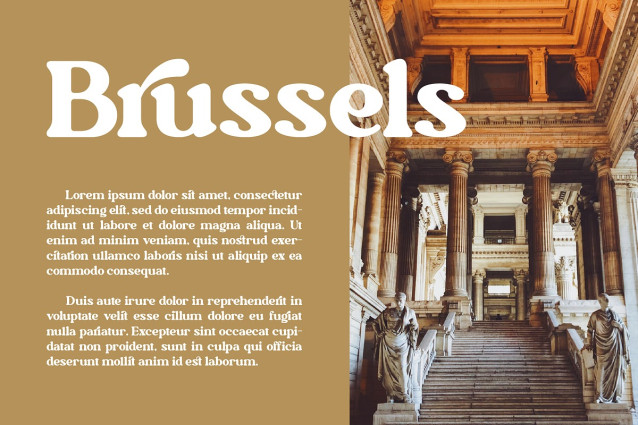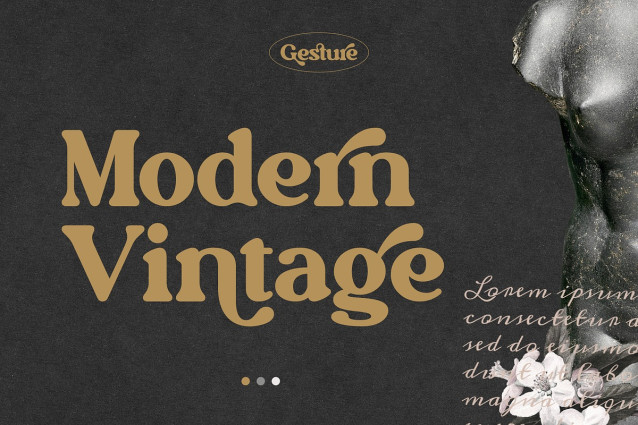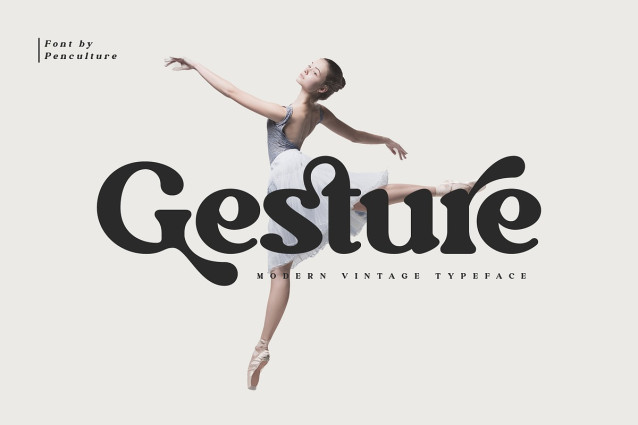
Gesture Vintage Font
Gesture Vintage Font is a brand new serif font which has a modern and vintage feel. In total this font has 255 glyphs and has more than 50 alternates and ligatures that will enhance a vintage feel to this font. Gesture would be perfect for branding, logo design, web design, poster, magazine, fashion and many more